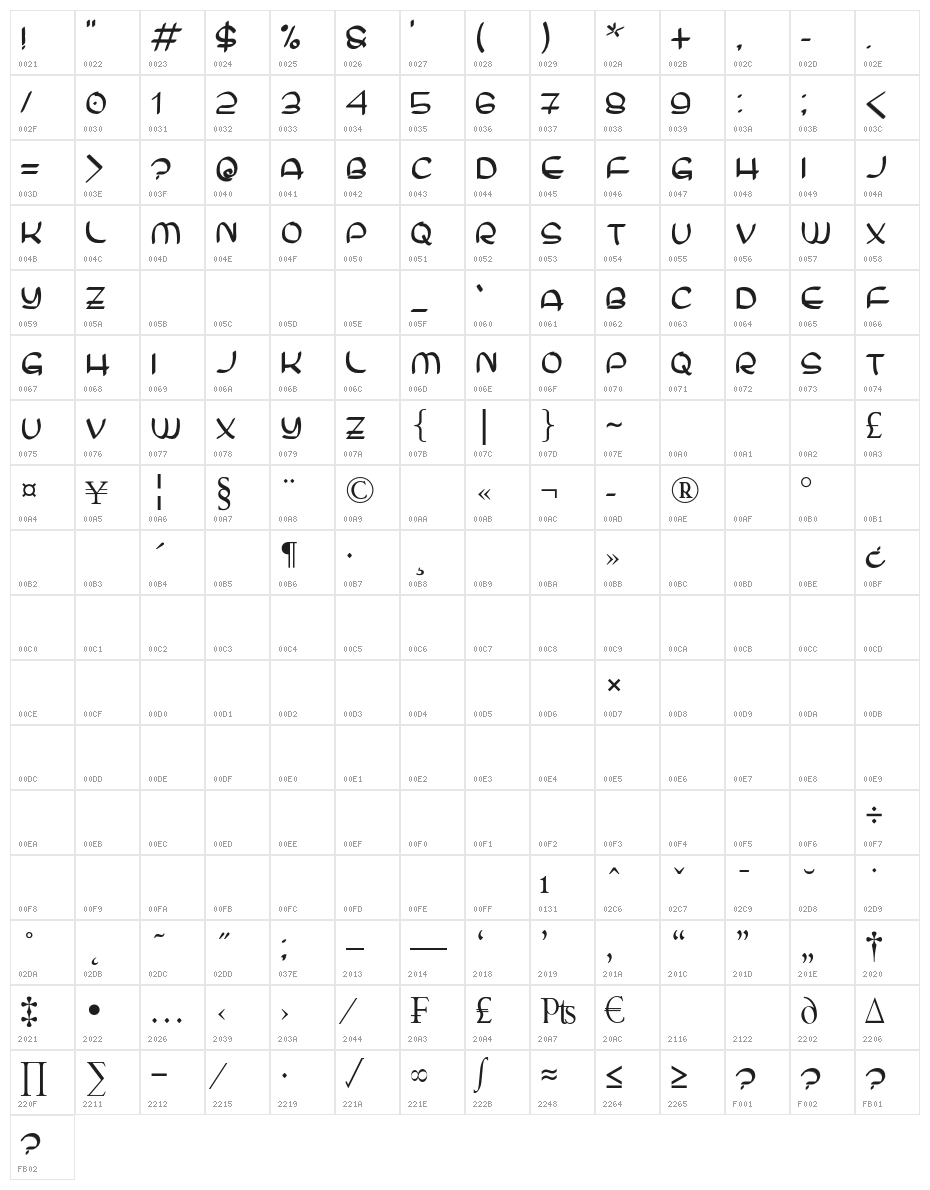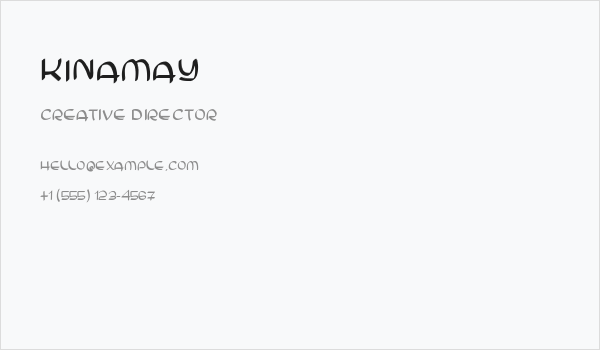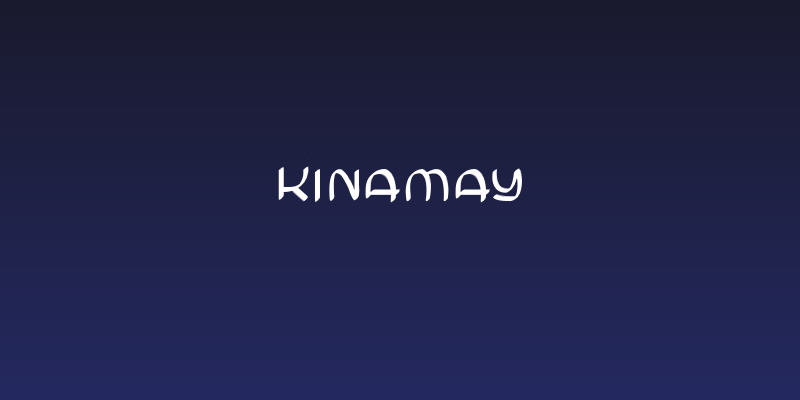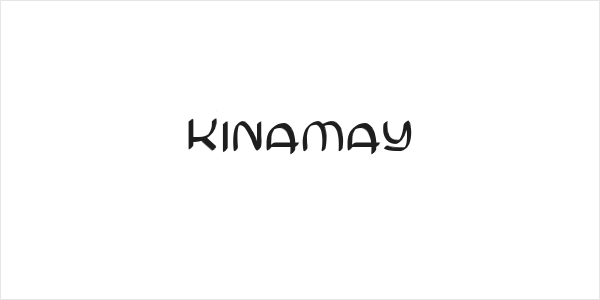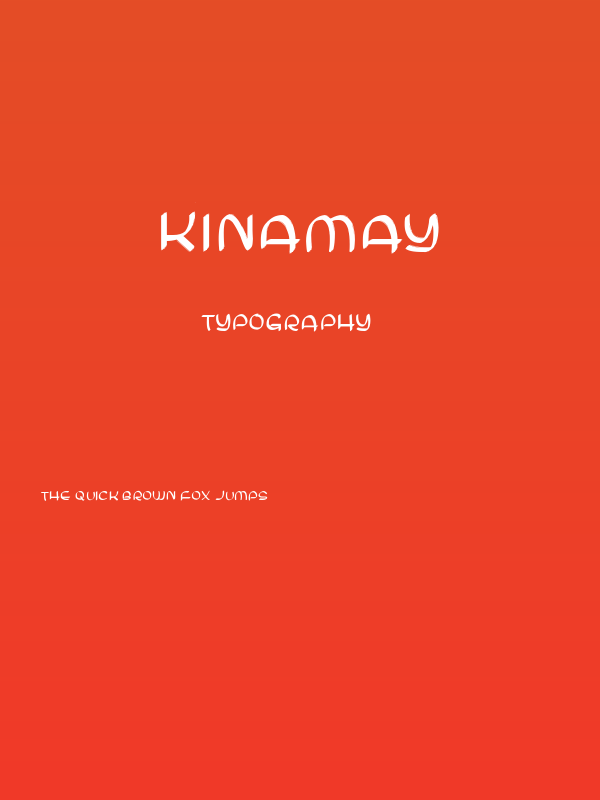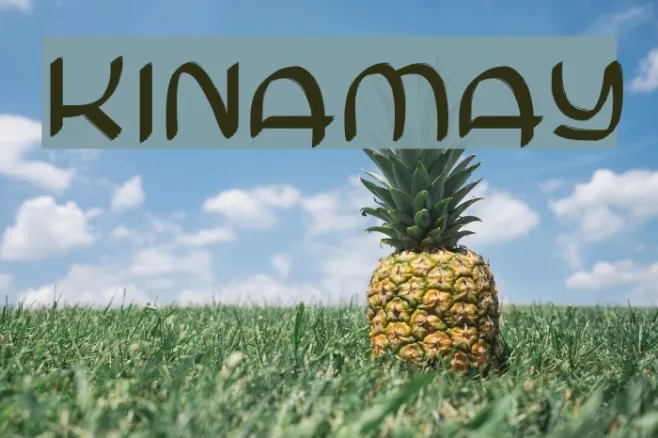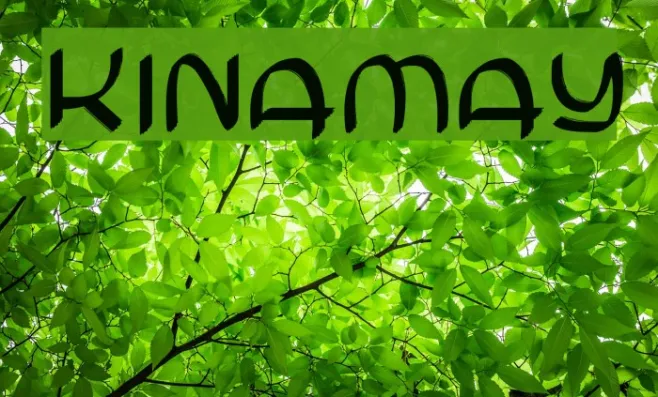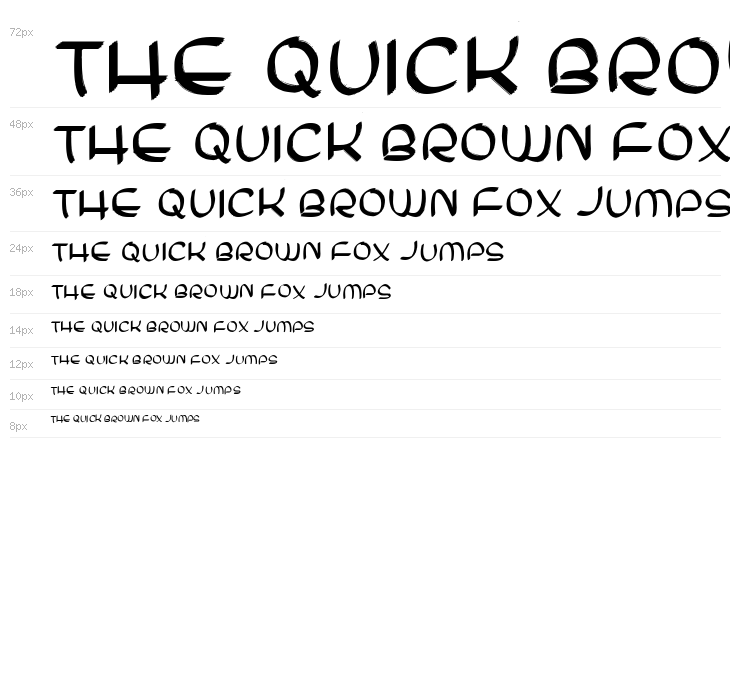
Kinamay Font
Kinamay Description
This font features a unique and modern design with a futuristic flair. The characters are crafted with a combination of sharp angles and smooth curves, creating a dynamic and eye-catching appearance. The uppercase and lowercase letters maintain a consistent style, with the uppercase being slightly more angular. The numerals are bold and distinct, ensuring readability. Special characters are designed to complement the overall aesthetic, making them suitable for various creative applications. The font's style is both innovative and versatile, making it a great choice for projects that require a contemporary and stylish look.